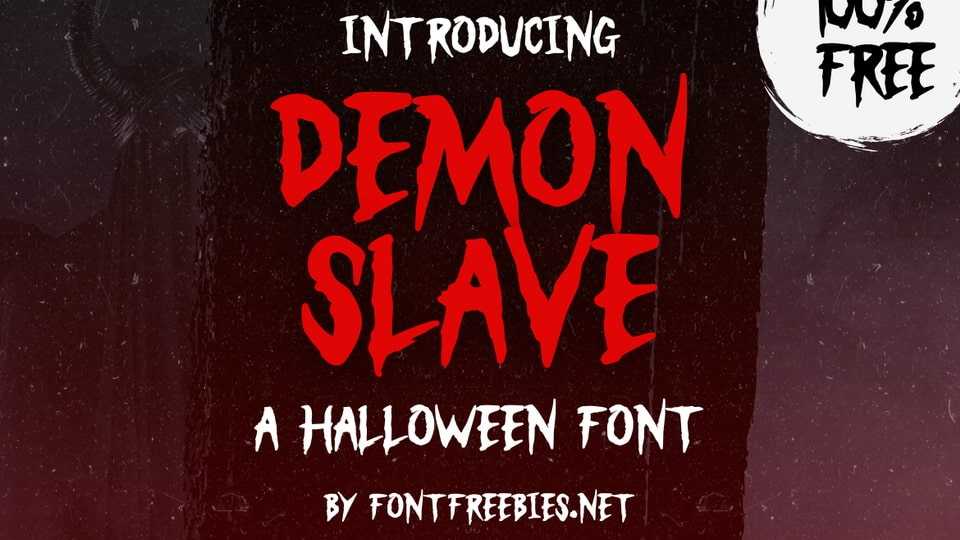
Download Demon Slave font, a bold, sinister typeface that’s perfect for Halloween designs that need a dark and menacing touch.
Designer: FontFreebies by IanMikraz